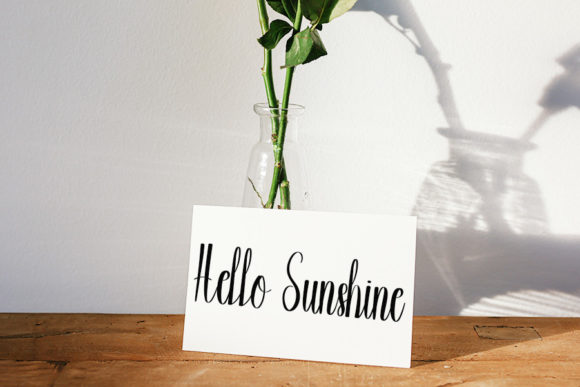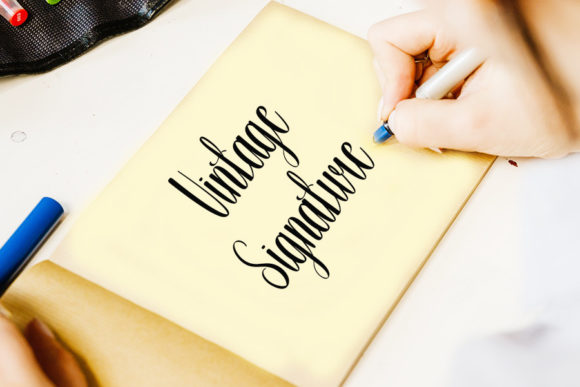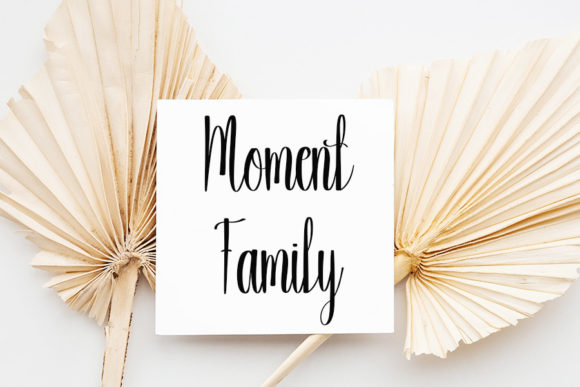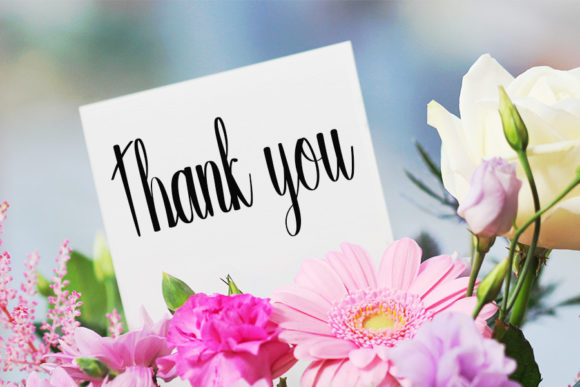
Signature is a friendly handwritten font, carefully designed to become a true favorite. It maintains its classy calligraphic influences while feeling contemporary and fresh.